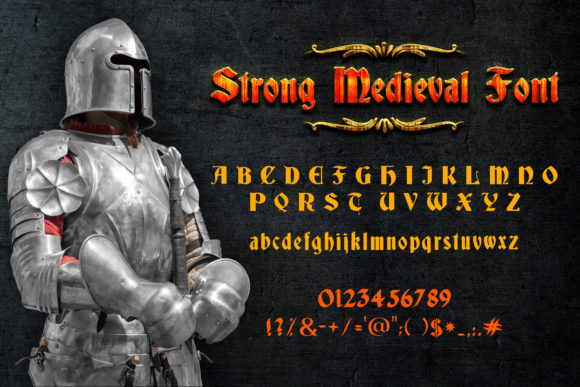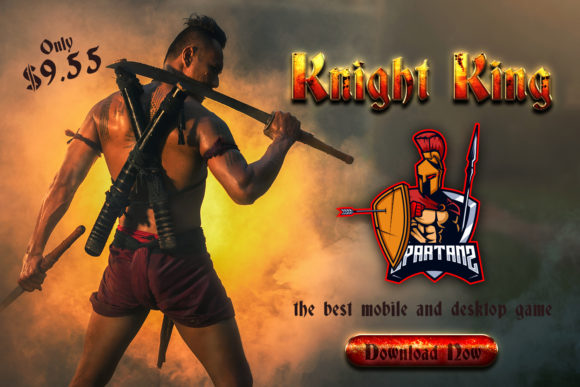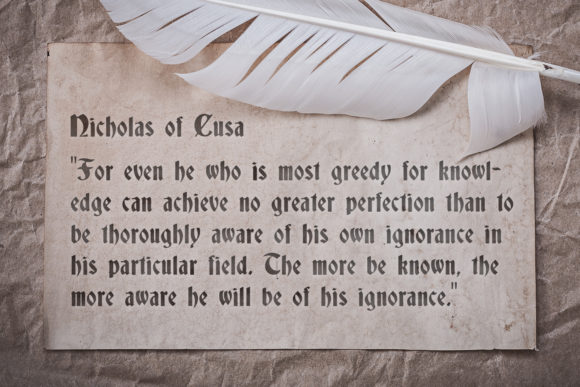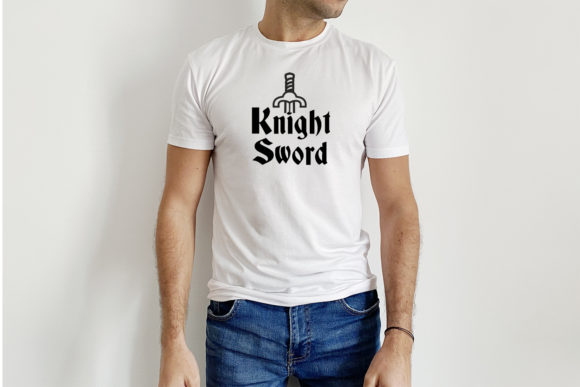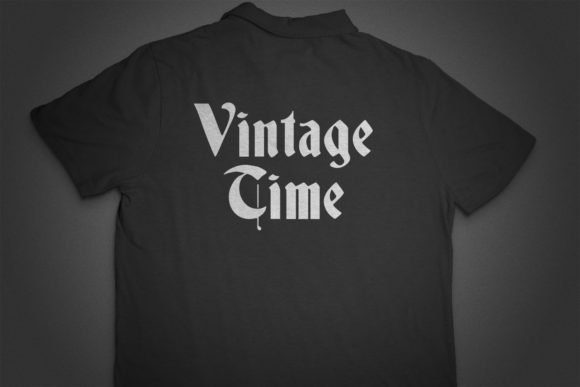
Strong Medieval Font
About Strong Medieval Font
Strong Medieval is a bold and enchanting handwritten font. Use to add a unique and medieval touch to your designs!